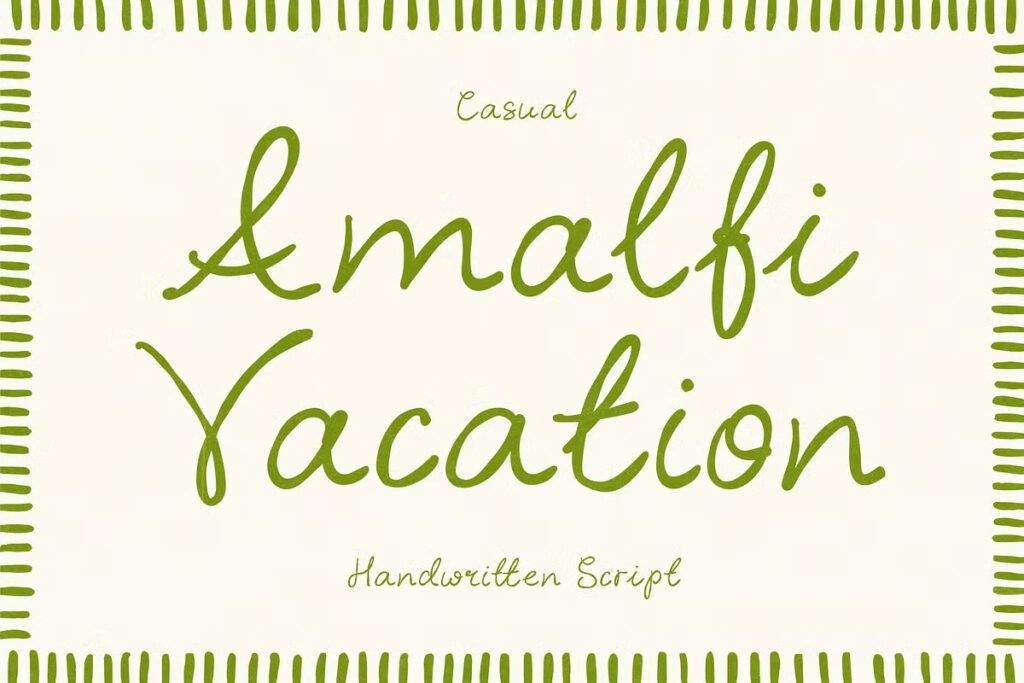
Amalfi Vacation: The Perfect Handwritten Font for Italian Wedding-Inspired Designs
If you’re planning a romantic Italian-themed wedding or designing dreamy stationery, the Amalfi Vacation Handwritten Font is just what you need to bring a touch of charm and elegance to your projects. Inspired by the serene beauty of Italian weddings, this font adds a whimsical and breezy feel to your designs, making it ideal for wedding invitations, save the dates, and romantic templates.
Why Amalfi Vacation is Perfect for Wedding Designs
Romantic Handwritten StyleAmalfi Vacation captures the elegance and grace of handwritten calligraphy, making it ideal for conveying the delicate and intimate atmosphere of a wedding. Its flowing letters add a sense of warmth and personal touch, perfect for invitation cards, stationery, and thank you notes.
Versatile Font Weights and StylesWith Regular, Slanted, Bold, and Bold Slanted options, Amalfi Vacation offers flexibility to adapt to different design needs. Whether you’re creating headlines or adding subtle details, this font ensures your text stands out while maintaining a sophisticated aesthetic.
Key Features of Amalfi Vacation
Handwritten font designed to evoke the charm of Italian weddings.
Available in Regular, Slanted, Bold, and Bold Slanted styles.
Ideal for wedding invitations, save the dates, stationery, and more.
Bring Italian Romance to Your Designs
Whether you’re a bride-to-be looking to design your own wedding invitations or a designer working on romantic-themed projects, the Amalfi Vacation Handwritten Font is the perfect choice to bring an elegant, personal touch to your creations. Its whimsical style will set the tone for a dreamy, unforgettable wedding.